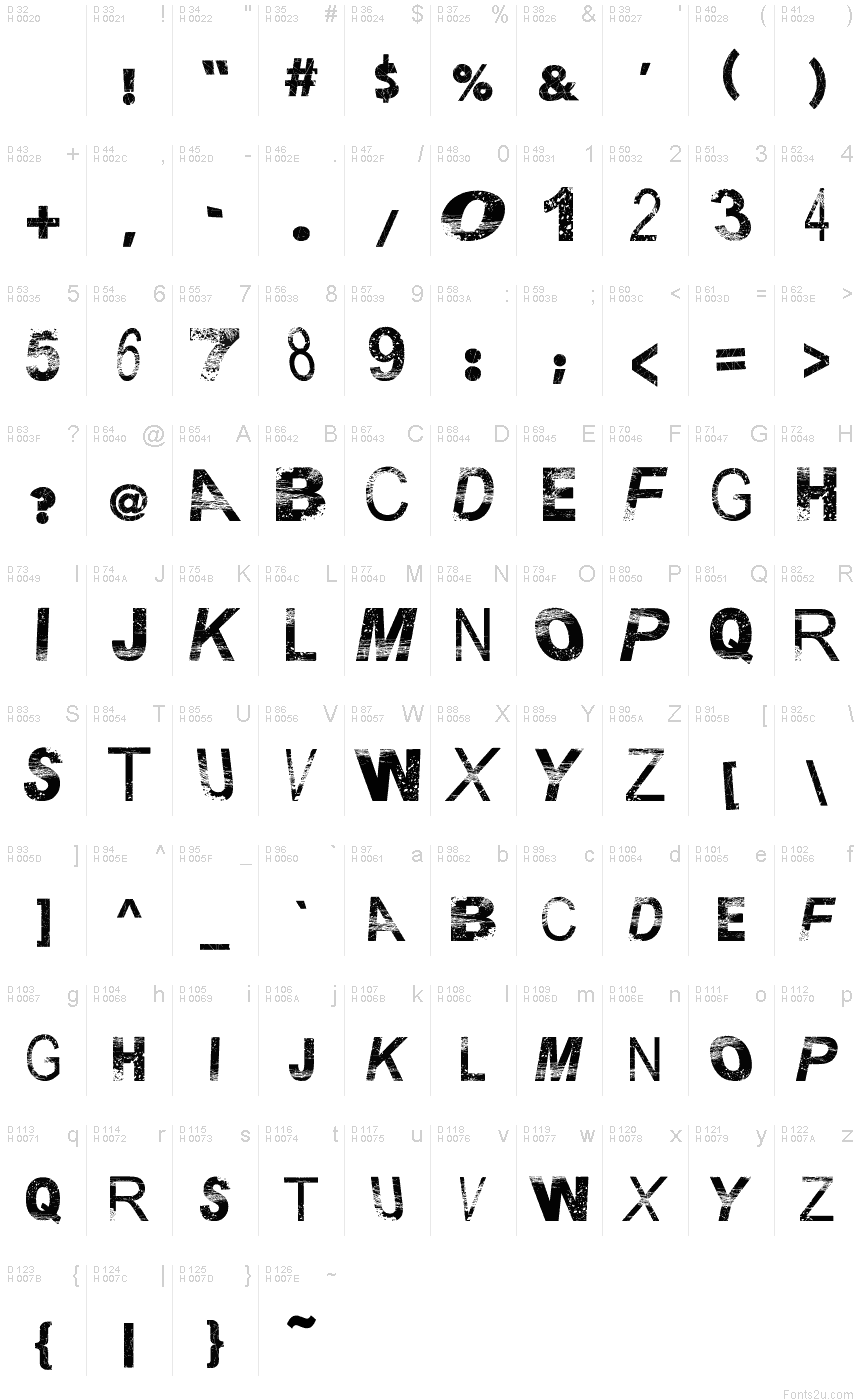
BSB DF 50 by Galdino Otten is a free eroded display sans with broad, forceful letters and a heavily scraped surface. Ragged gaps, streaks, and worn patches break across the solid shapes, resembling weathered print or damaged signage.
Urban decay, industrial settings, and hard-edged music imagery are a natural match for this rough texture. It suits concert posters and skate merchandise. Action-game graphics, film title cards, and distressed apparel prints can use the letters as part of the artwork rather than neutral text.